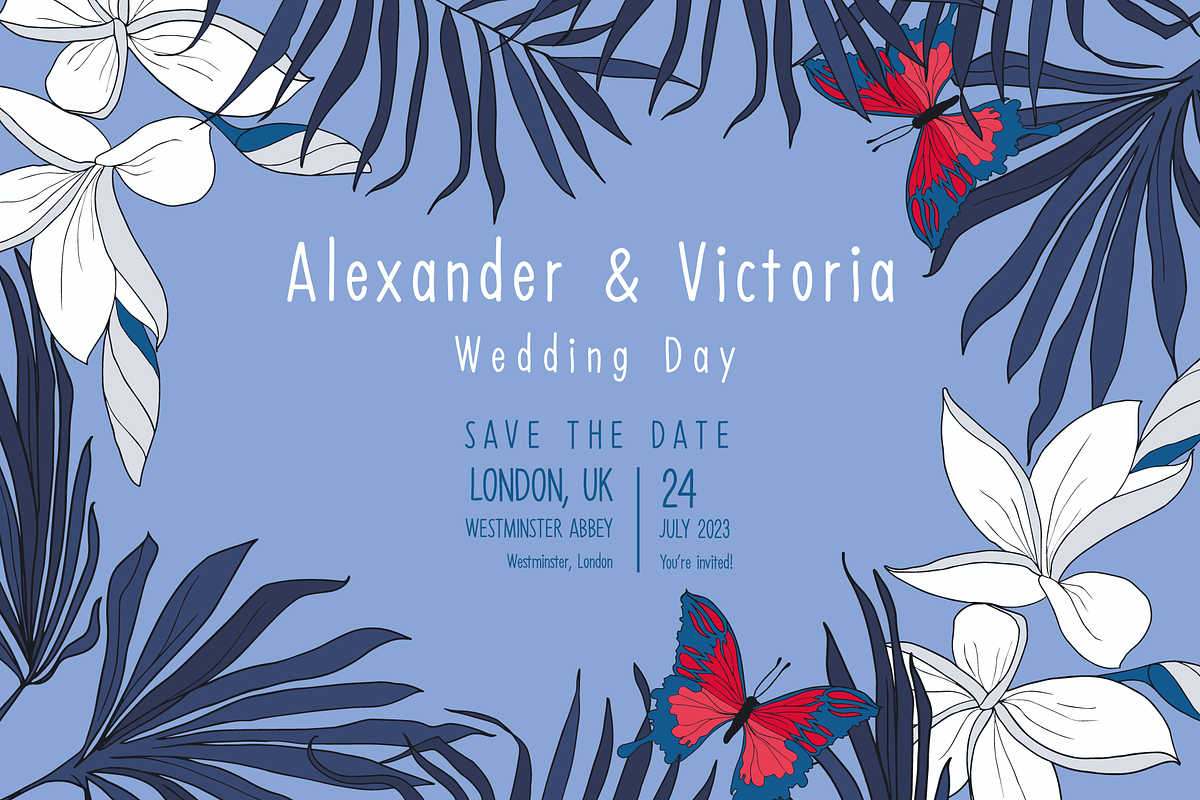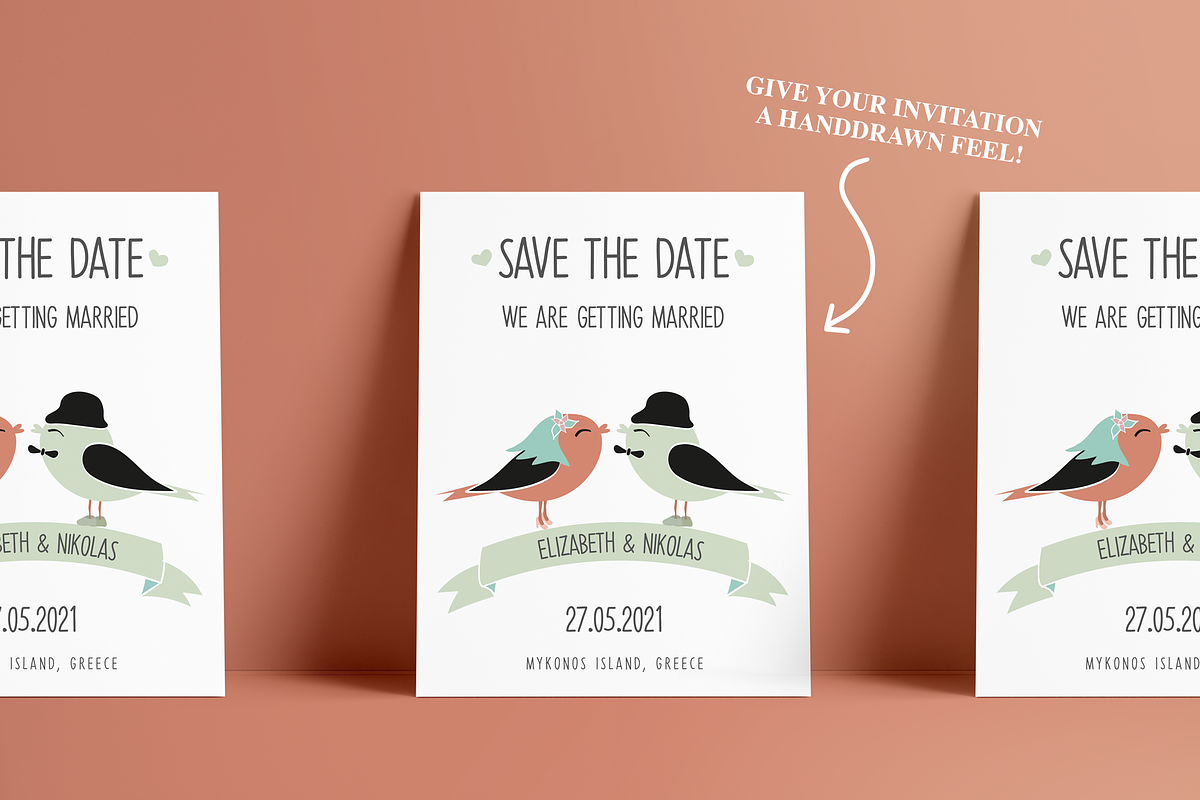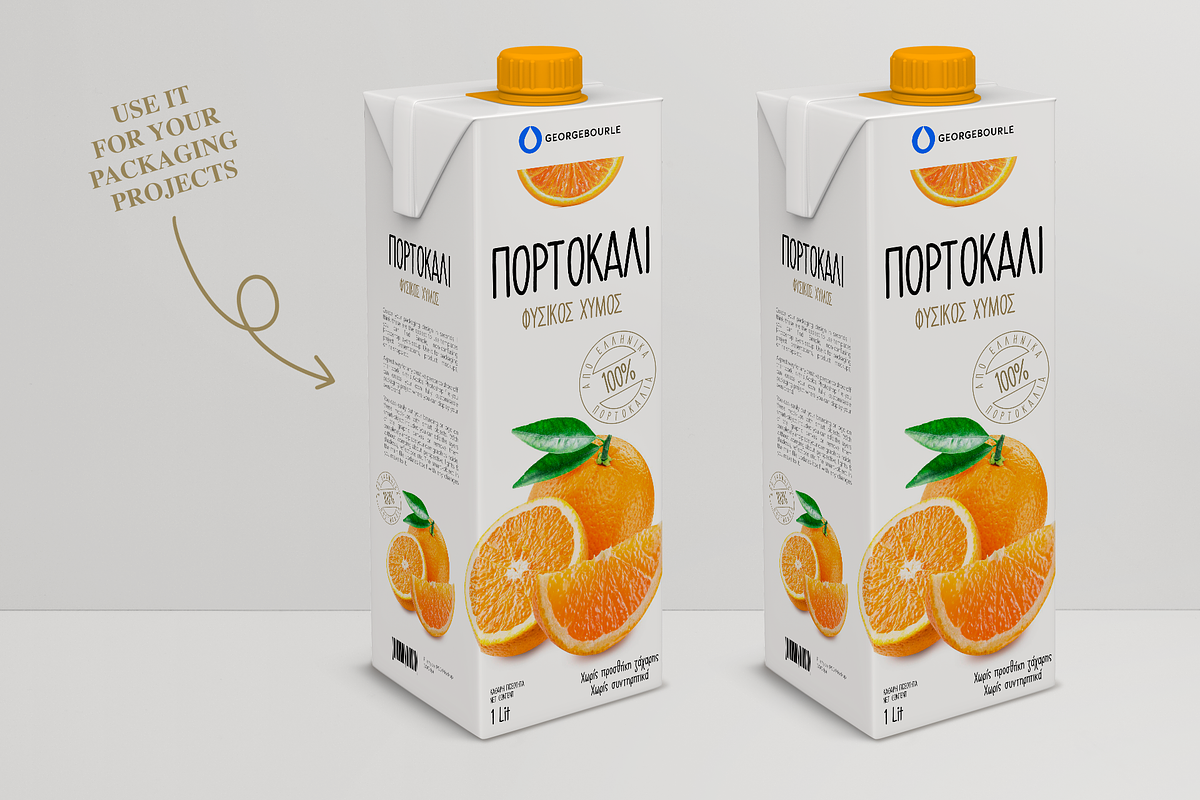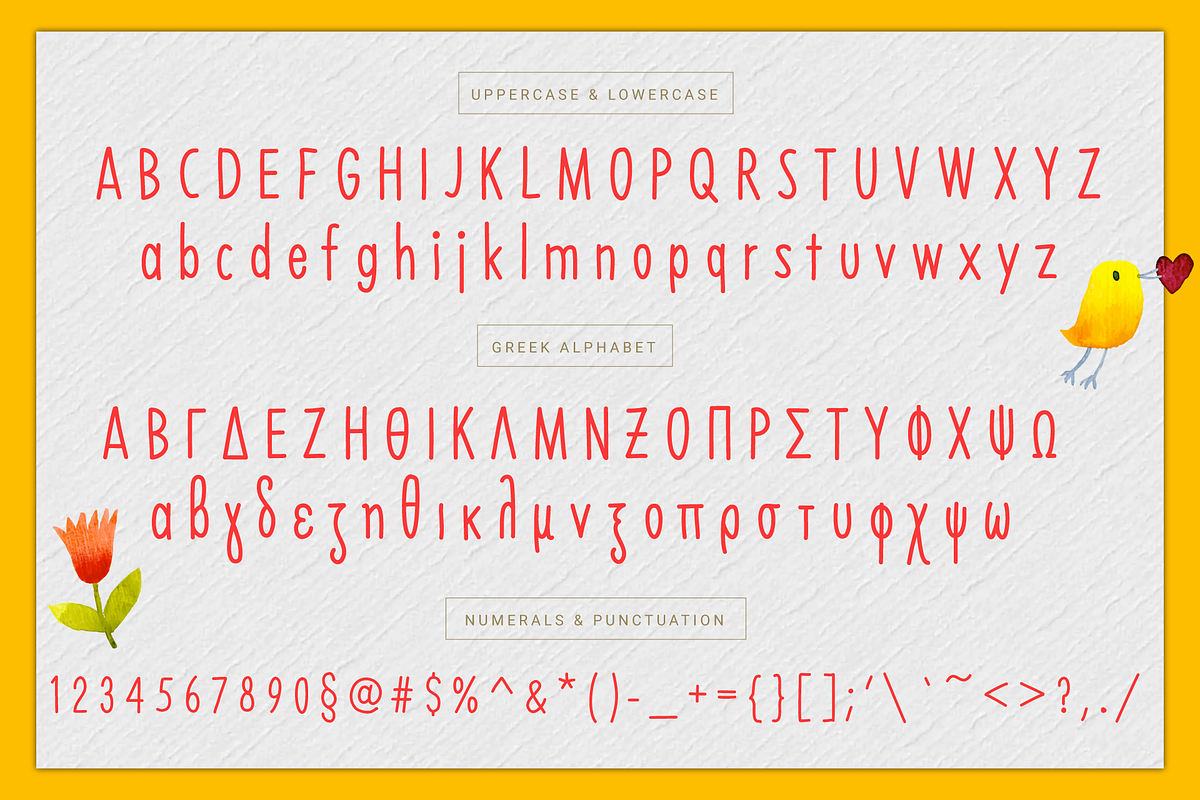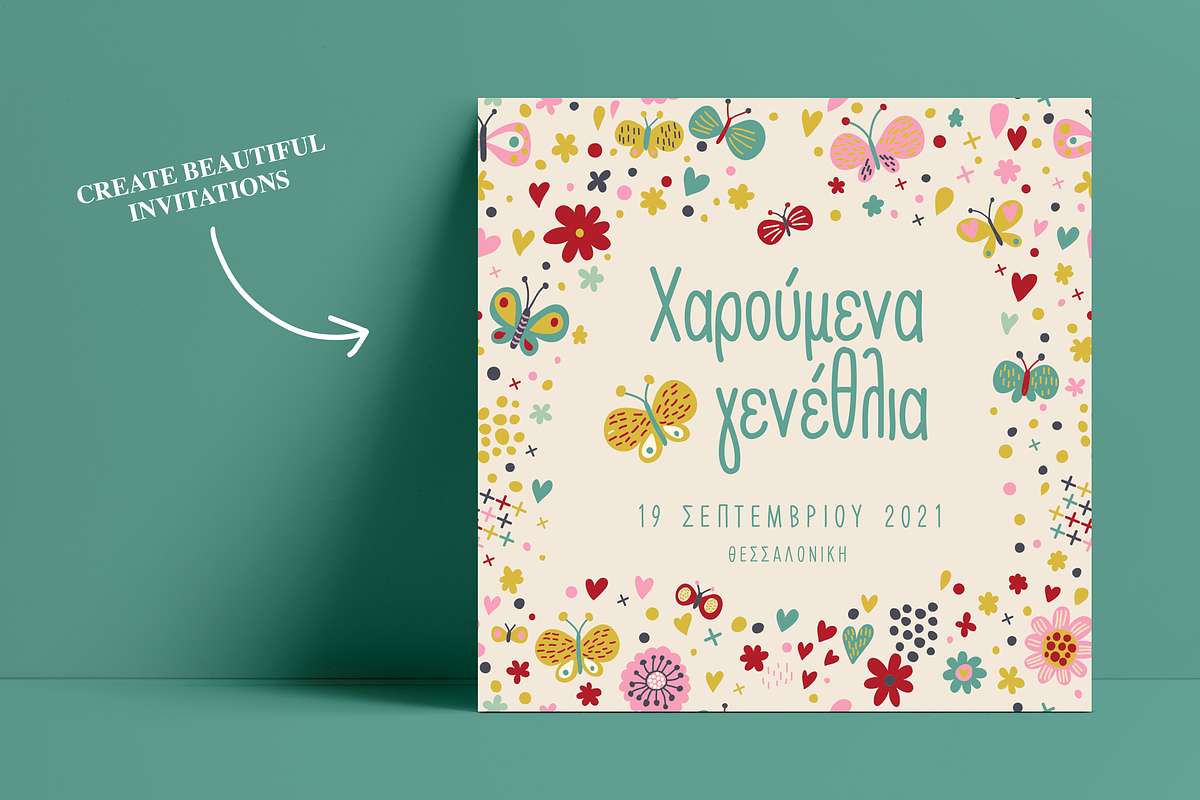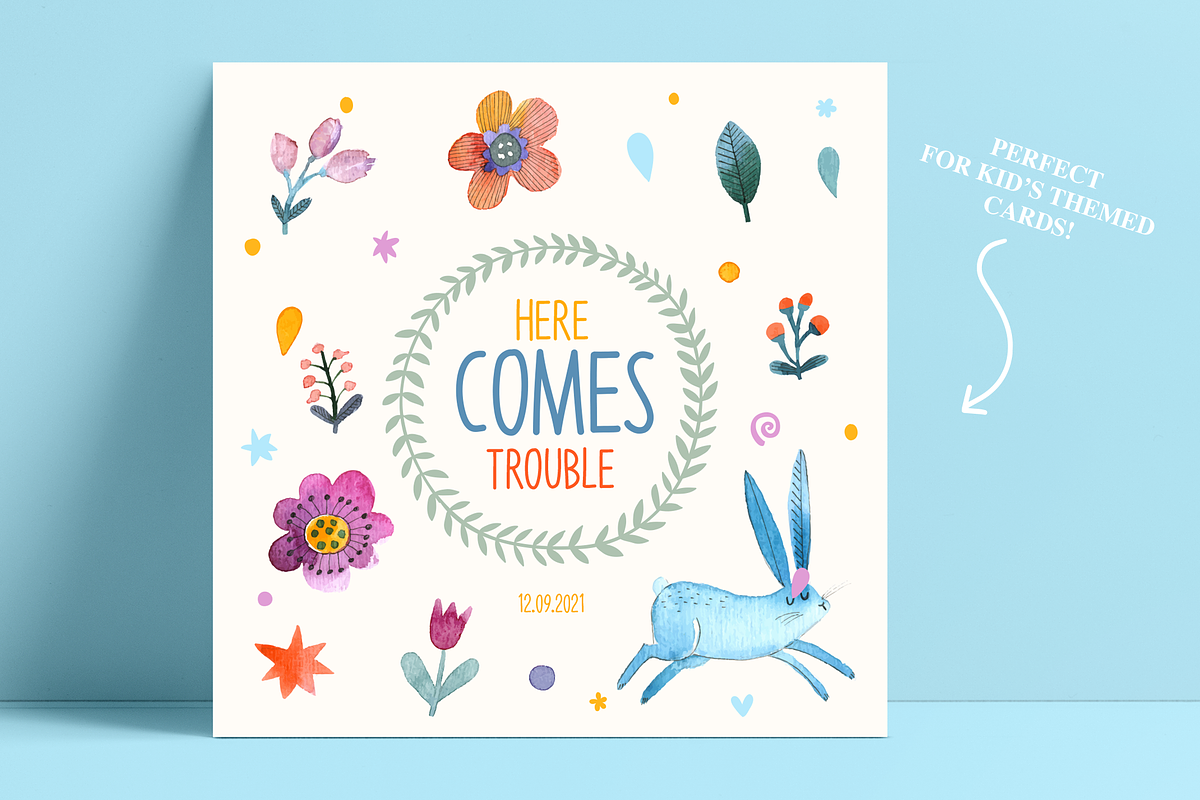
CONDERA CONDENSED HANDMADE FONT
Introducing Condera, a condensed hand drawn font, designed for your special projects and products.
Use it for your invitations, packaging, headlines, mottos or your brand project and many more.
The Greek language is fully covered, so go and create some spectacular Greek designs!
Of course it supports international languages.